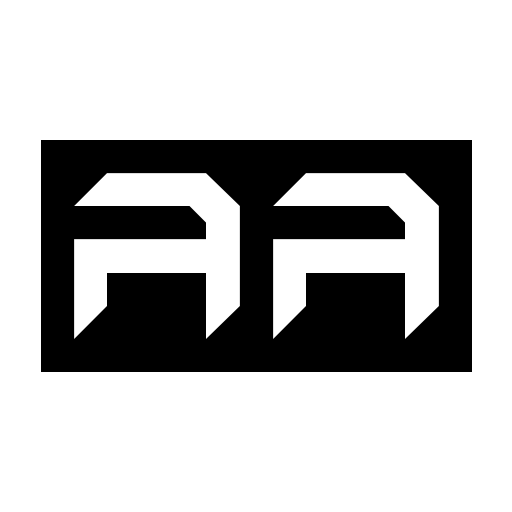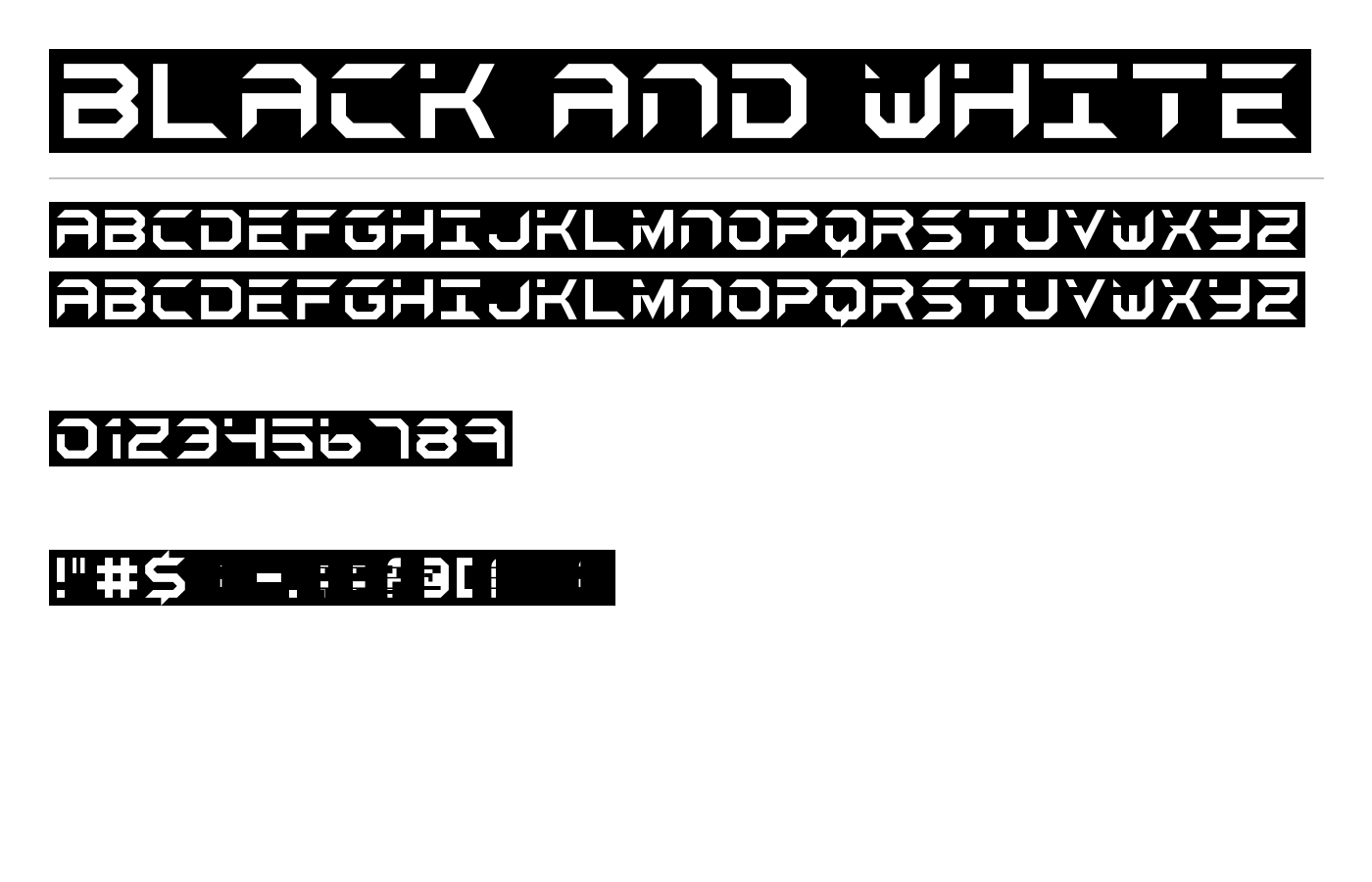
Black and White is a bold, geometric sans serif font characterized by its high contrast between thick black blocks and white negative space, creating a striking "cut-out" effect. With its sharp angles, modular shapes, and uniform uppercase style, it delivers a futuristic and tech-inspired personality, perfect for eye-catching headlines, logos, and modern digital branding that demands a strong visual impact.
black and white Font
About black and white Font